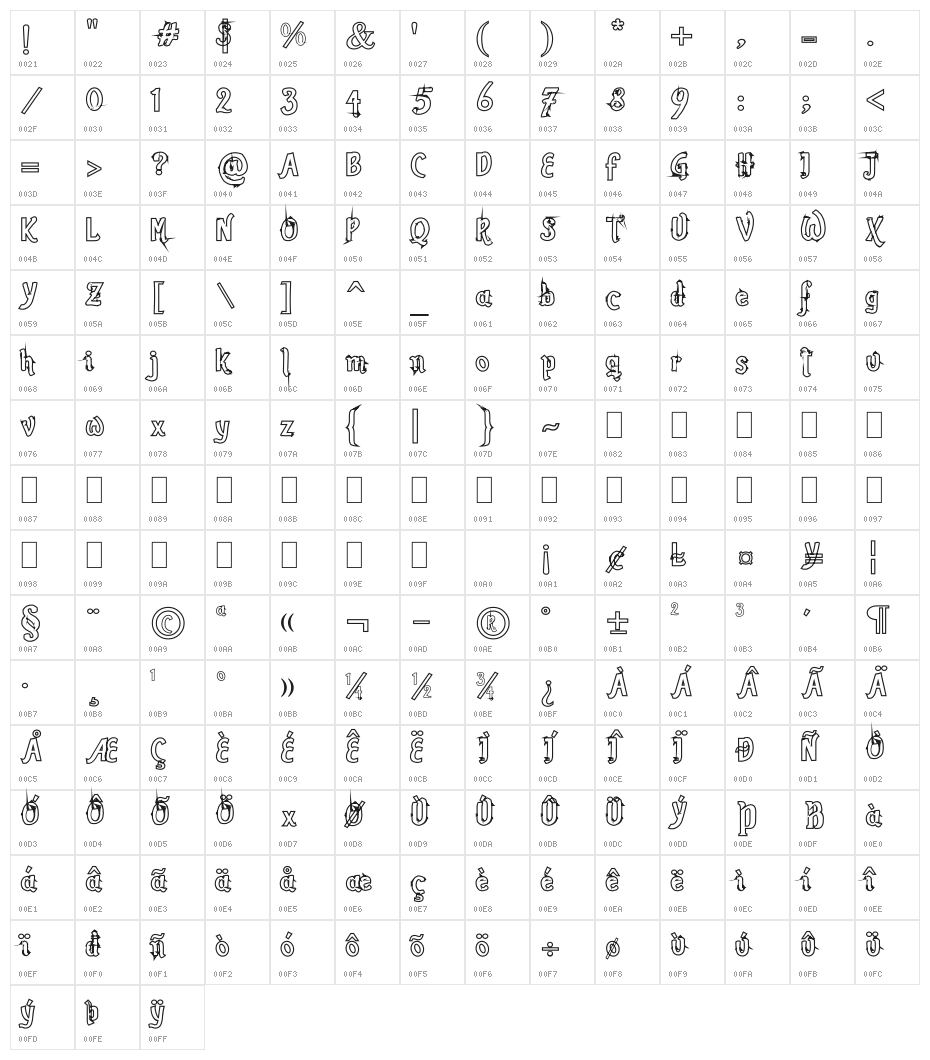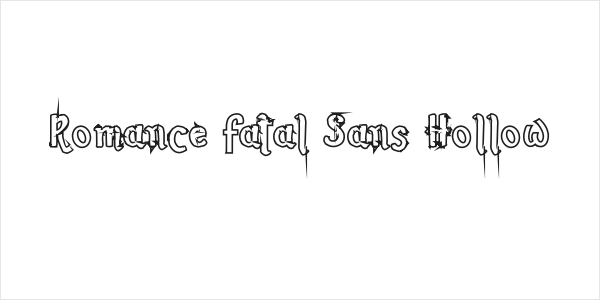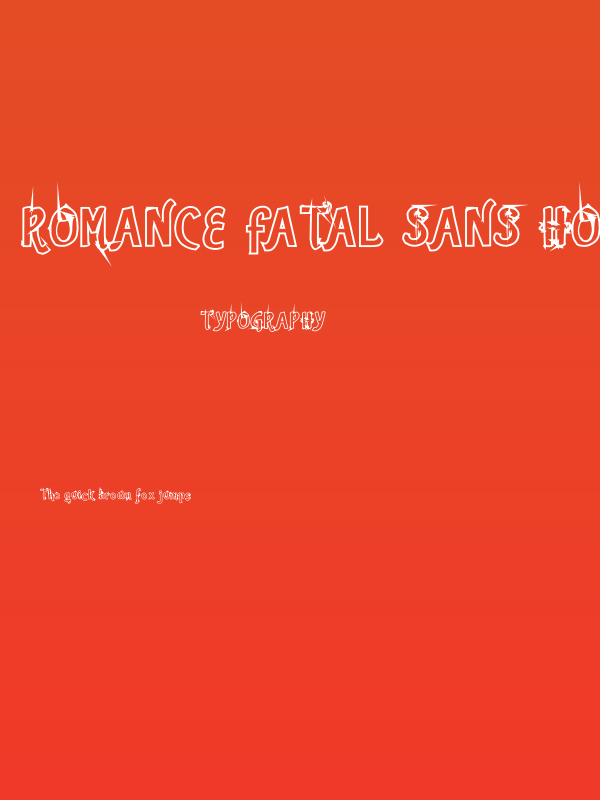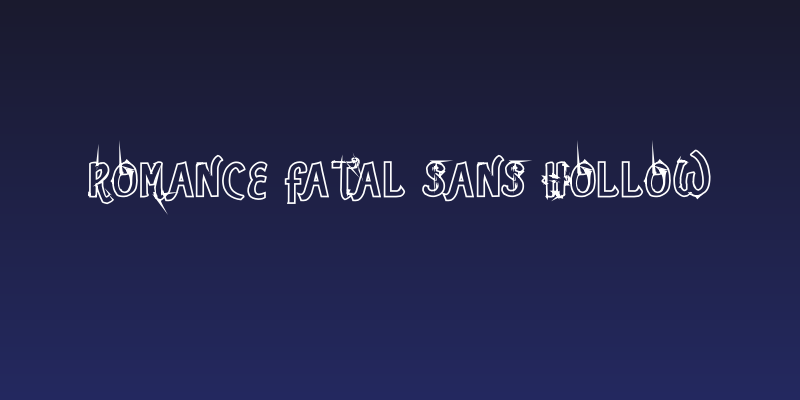
Romance Fatal Sans Hollow Font
Romance Fatal Sans Hollow Description
This font features a unique hollow design with a bold and edgy appearance. The characters are outlined with a thick, black stroke, giving them a striking and dramatic look. The uppercase and lowercase letters maintain a consistent style, with sharp angles and pointed edges that add a sense of intensity and flair. The numbers and special characters follow the same design principles, ensuring a cohesive and visually impactful typeface. This font is ideal for projects that require a bold statement and a modern, artistic touch.
| Proposed Projects | Ideal for album covers, posters, and edgy branding materials. |